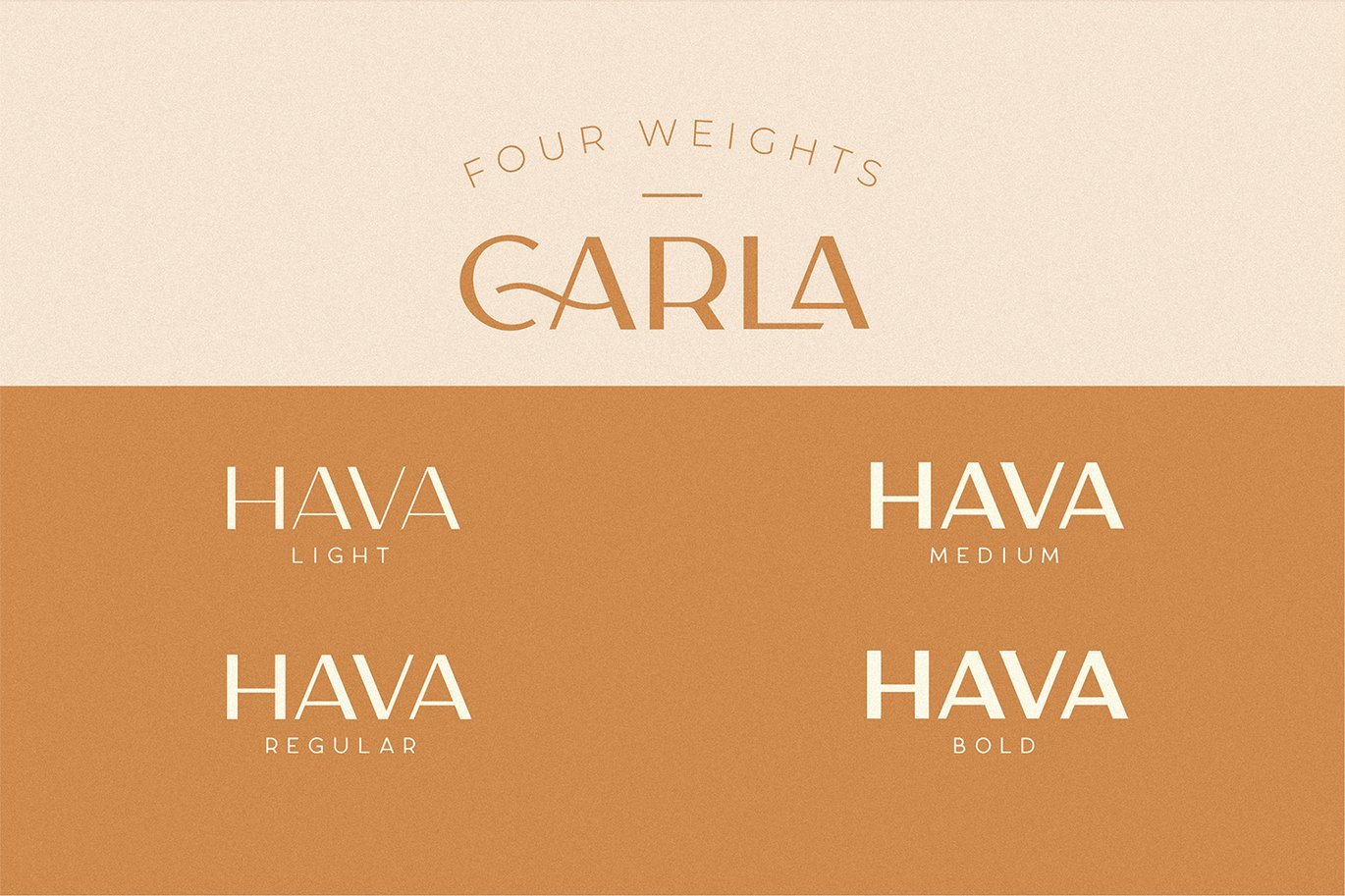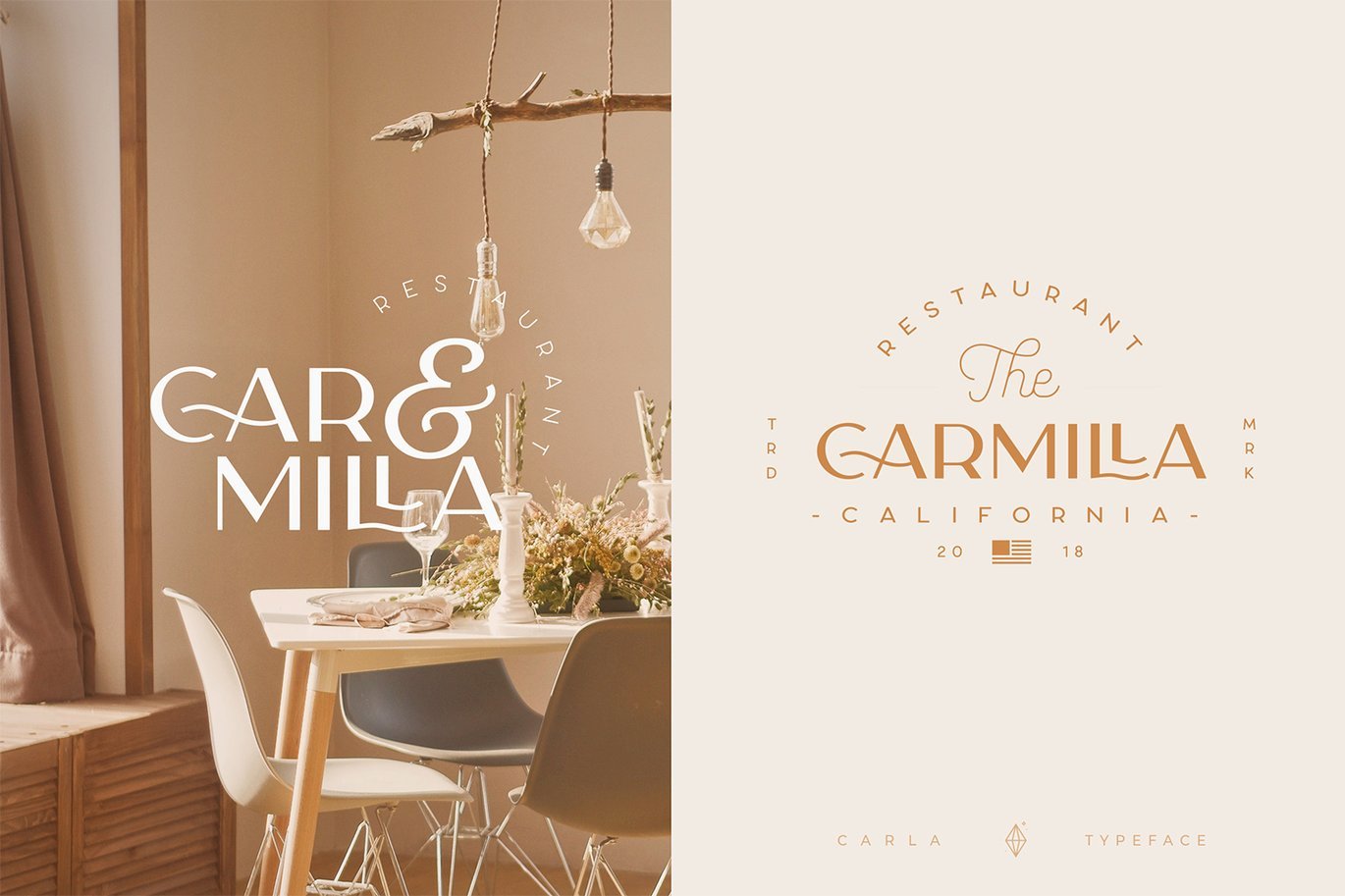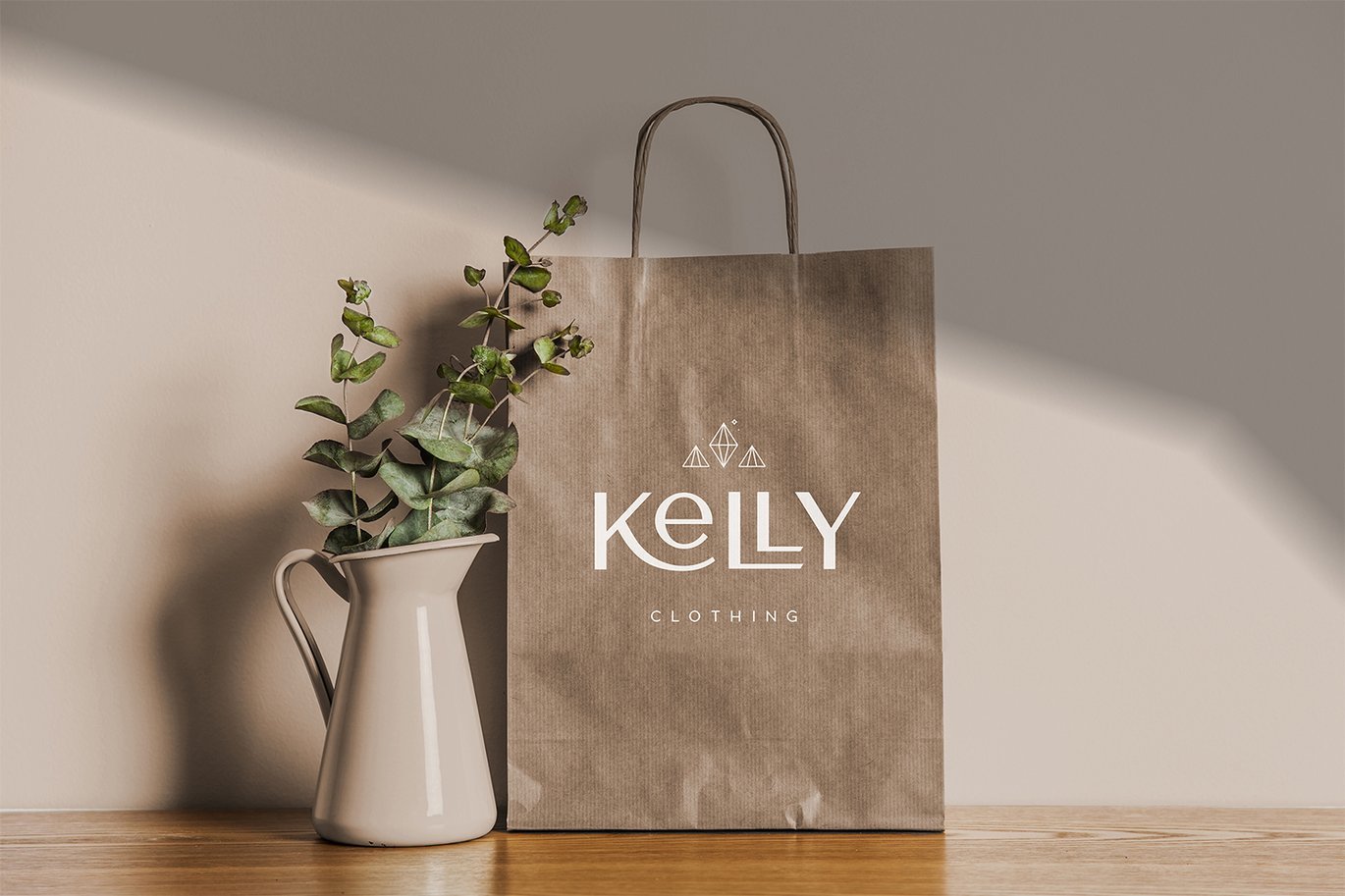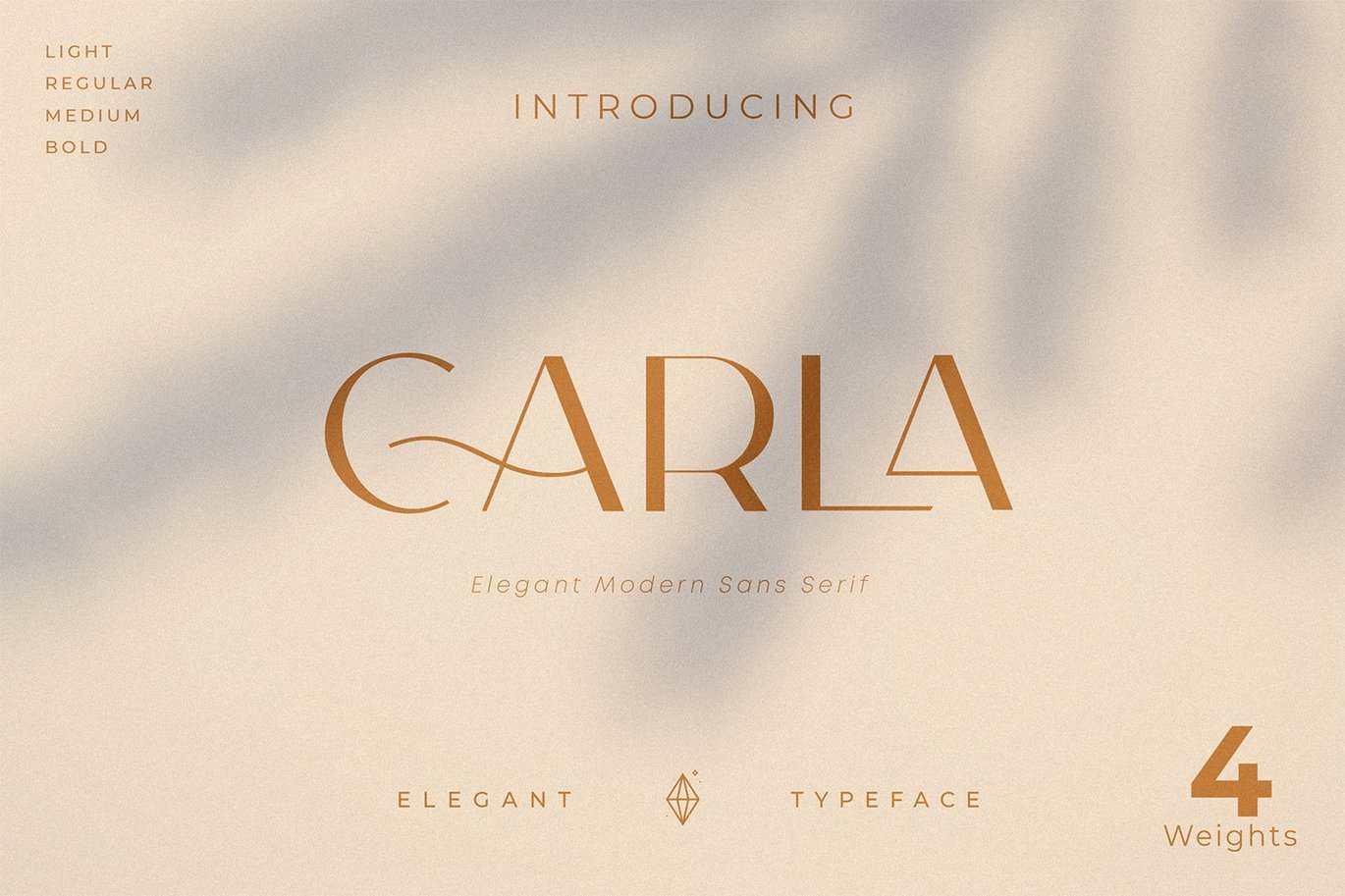
Carla Sans – Elegant Typeface Font
Introducing Carla Sans - Elegant Typeface
Carla Sans is a Minimalist Modern Elegant vintage font with beautiful ligatures, tons of special alternative glyphs, ornament and multilingual support. It's a very versatile font that works great in large and small sizes.
Elegant Carla Sans is perfect for branding projects, Logo design, Clothing Branding, product packaging, magazine headers, or simply as a stylish text overlay to any background image.
- 4 Weights font
- All caps
- Stylistic Alternates & Ligatures
- Accented characters
- Multiple Languages Supported